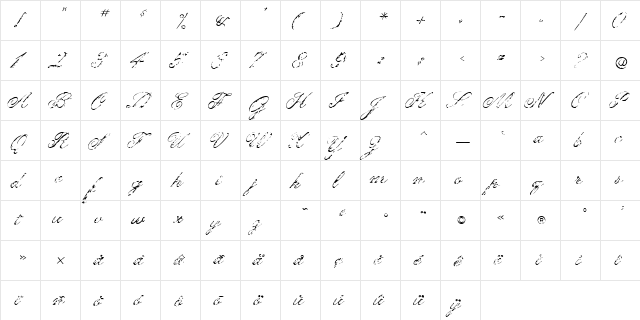
LeScript Thin
Design Context for LeScript Typeface
LeScript brings a calligraphic fluidity to the page — its connecting strokes and expressive curves give it an unmistakably human quality. Its slender proportions lend an understated elegance to any composition.
Font Pairing: Combine LeScript with a simple geometric sans for maximum contrast — the tension between flowing curves and clean structure is a classic typographic pairing.
Pro Tip: Use LeScript for short runs of text — names, titles, or taglines. Extended body copy in script faces tires the eye quickly.